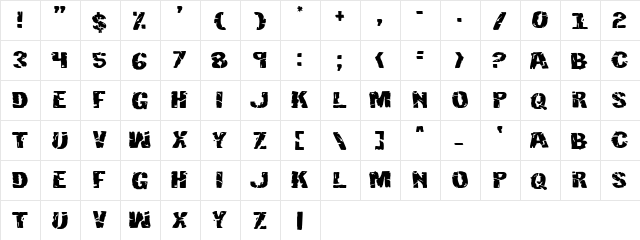
Hulkbusters Regular
Design Context for Hulkbusters Typeface
Hulkbusters is a composed and adaptable typeface that performs quietly and consistently across a wide range of design contexts.
Pro Tip: Use Hulkbusters in both headline and body roles to test its range before committing to a single application.